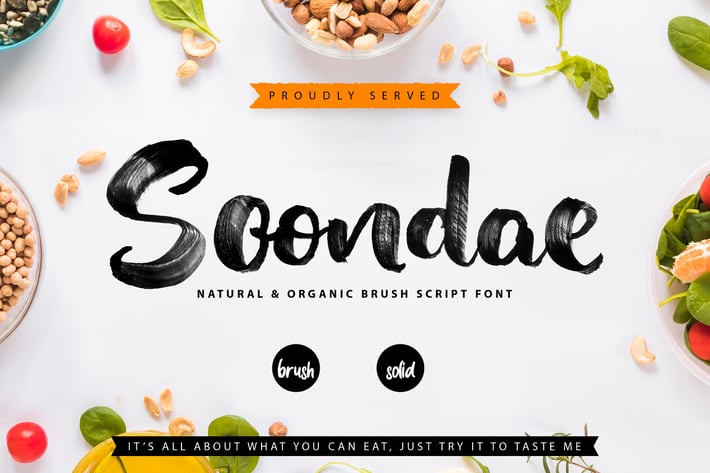
Soondae | Natural & Organic Brush Font
Soondae | Natural & Organic Brush Font with a calligraphy style, So beautiful on invitation like greeting cards, branding materials, business cards, quotes, posters, and more!